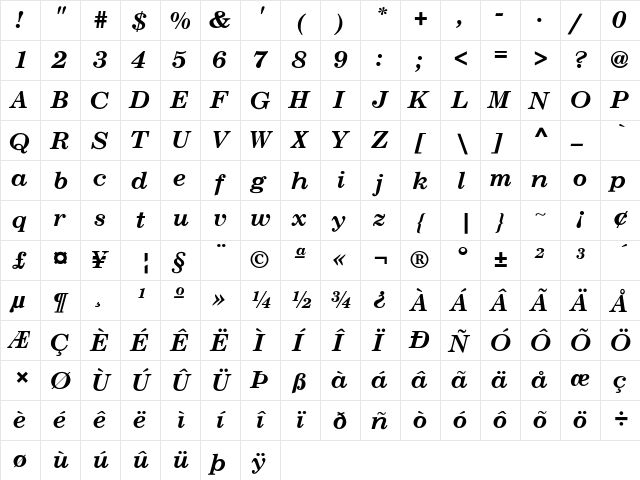
NewCenturySchlbk-Bold-Italic Regular Font Preview
Design Context for NewCenturySchlbk-Bold-Italic Typeface
NewCenturySchlbk-Bold-Italic is a composed and adaptable typeface that performs quietly and consistently across a wide range of design contexts. The slanted form adds forward momentum and visual energy. Its bold stroke weight gives it real presence on the page.
Pro Tip: Try NewCenturySchlbk-Bold-Italic for annotation and caption copy alongside an upright companion — the contrast in angle creates a dynamic but ordered typographic system.